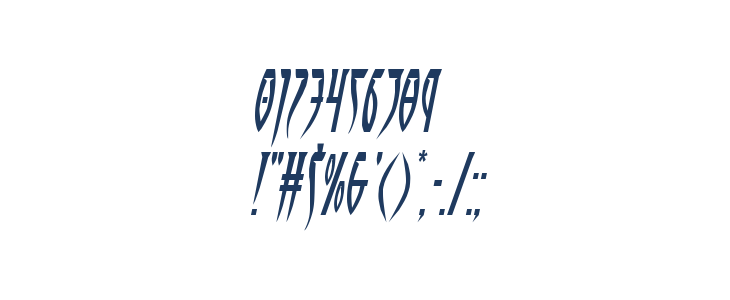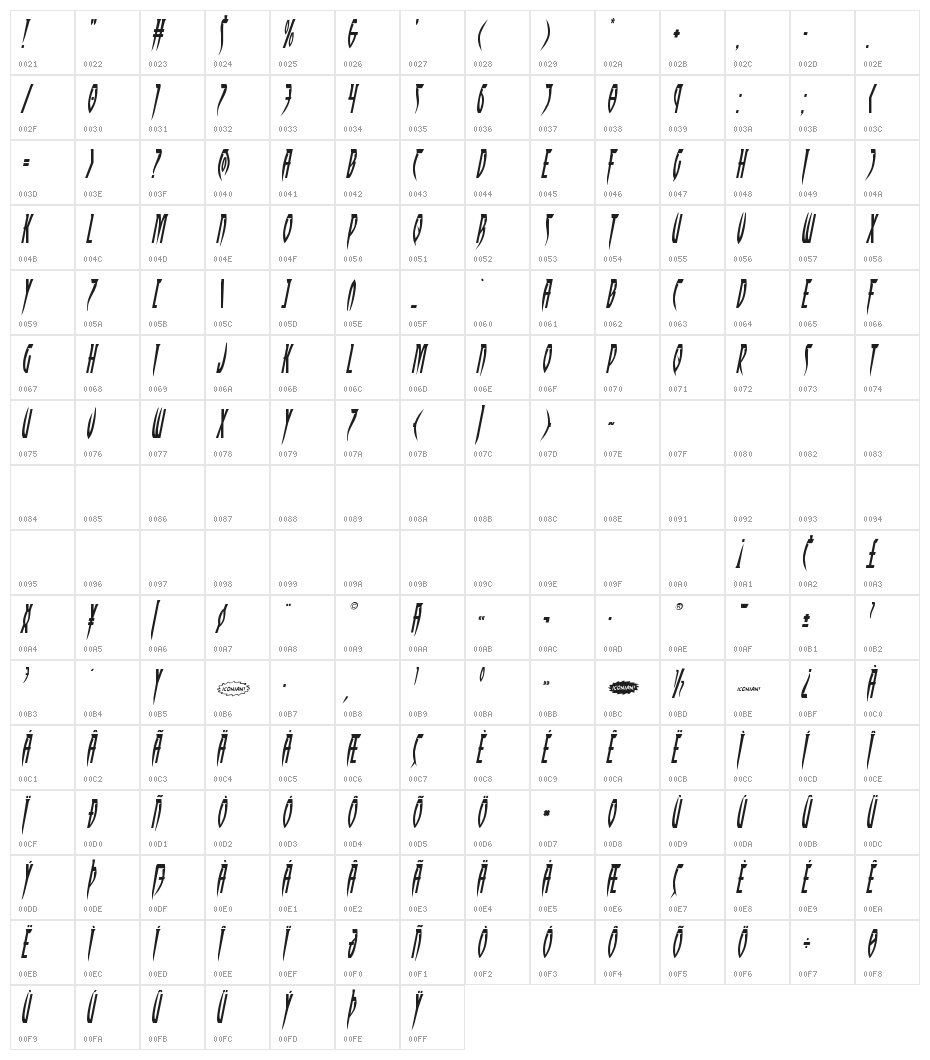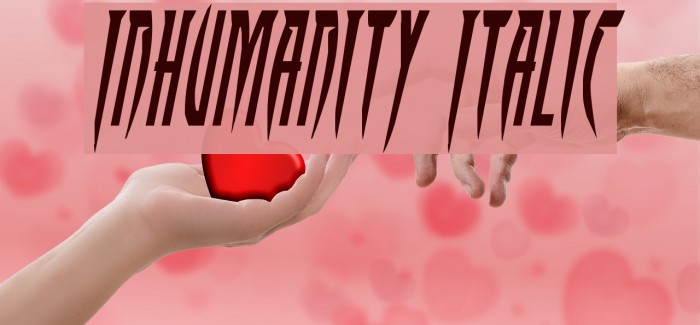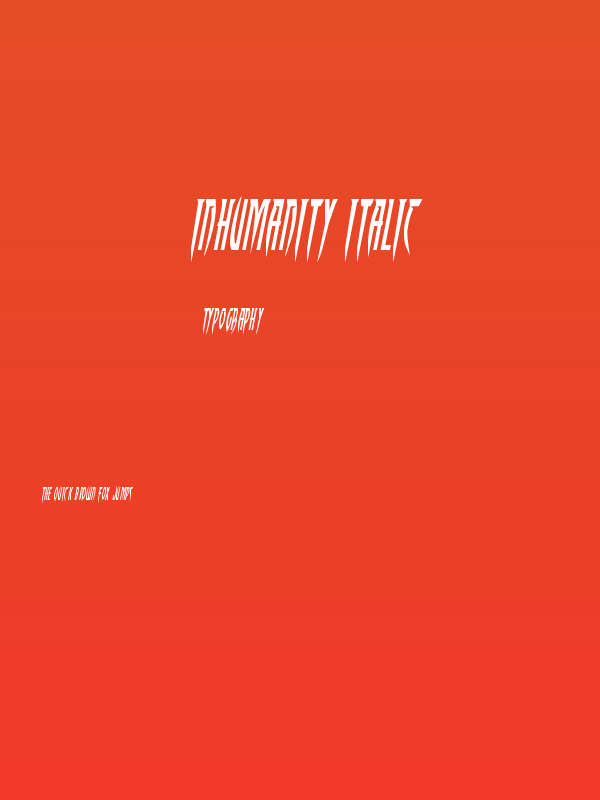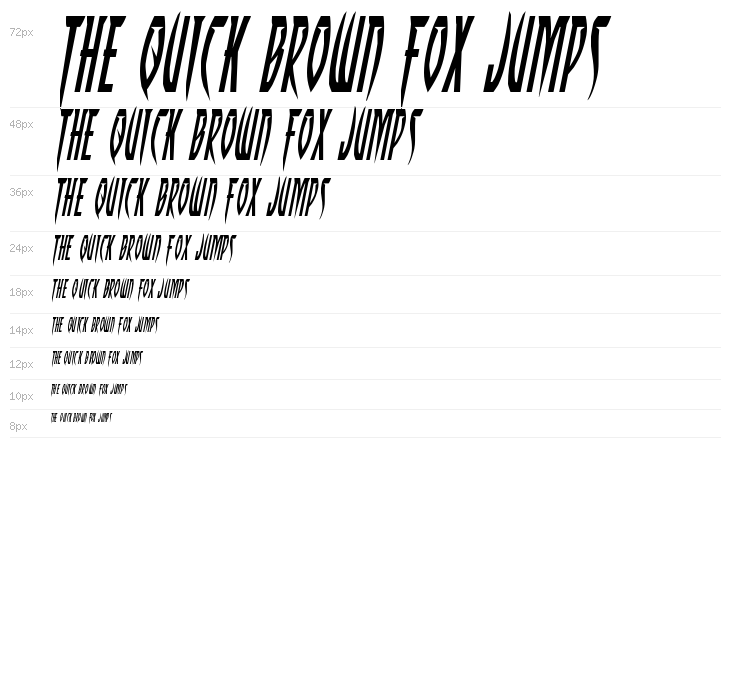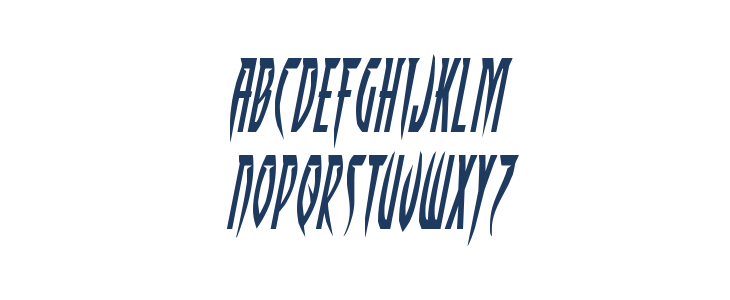
Inhumanity Italic Font
Inhumanity Italic Description
This font features a striking and dynamic italic style, characterized by sharp, angular lines and a strong forward slant. The uppercase and lowercase letters maintain a consistent height, creating a cohesive and streamlined appearance. The numerals and special characters follow the same angular design, ensuring uniformity across all glyphs. The font's bold strokes and high contrast between thick and thin lines give it a powerful and energetic feel, making it ideal for attention-grabbing designs.
Proposed ProjectsIdeal for posters, logos, and branding that require a bold and energetic look.